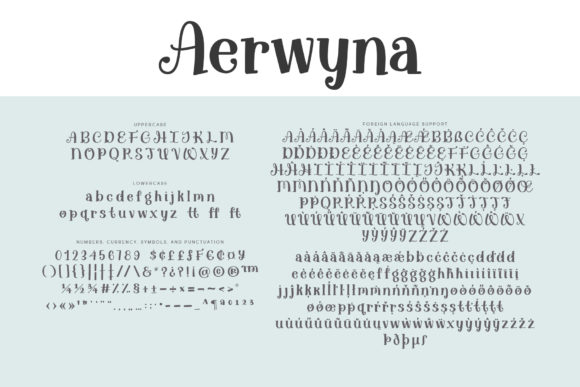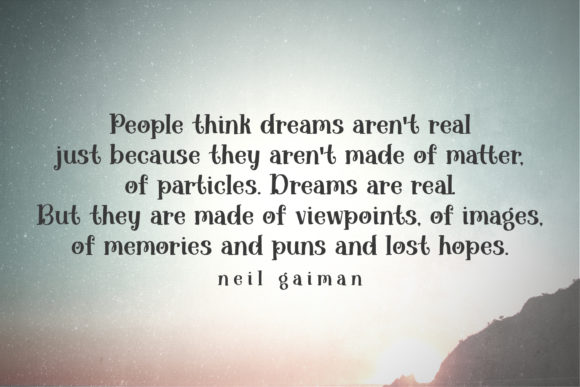
Aerwyna Font: A Whimsical Serif for Your Design Projects
Are you looking for a font that adds a touch of friendliness and whimsy to your design projects? Look no further than Aerwyna, a hand-drawn serif created by Brittney Murphy Design & Misti’s Fonts. This rustic, fairytale-style font is perfect for designers and crafters who want to add a unique and playful touch to their work.
The Story Behind Aerwyna
Aerwyna is a carefully crafted font that is designed to evoke a sense of nostalgia and wonder. With its rustic, hand-drawn aesthetic, this font is perfect for projects that require a touch of whimsy and charm. Whether you’re working on a logo, a website, or a craft project, Aerwyna is sure to add a unique and eye-catching element to your design.
Key Features of Aerwyna
So what sets Aerwyna apart from other fonts? Here are a few key features that make this font truly special:
• Hand-drawn serif: Aerwyna is a hand-drawn serif font, which gives it a unique and personal touch.
• Rustic, fairytale style: This font has a rustic, fairytale-style aesthetic that is perfect for projects that require a touch of whimsy and charm.
• Unique and legible: Aerwyna is a highly legible font that is also unique and eye-catching.
• Versatile: This font can be used for headlines, bylines, or content alike, making it a versatile addition to your design toolkit.
Using Aerwyna in Your Design Projects
So how can you use Aerwyna in your design projects? Here are a few ideas to get you started:
• Logos and branding: Aerwyna is a great font for logos and branding projects that require a touch of whimsy and charm.
• Web design: This font is perfect for websites that need a unique and eye-catching element.
• Crafting and DIY projects: Aerwyna is a great font for crafters and DIY enthusiasts who want to add a personal touch to their projects.
• Social media graphics: This font is perfect for social media graphics that need a touch of personality and whimsy.
Tips for Getting the Most Out of Aerwyna
Here are a few tips for getting the most out of Aerwyna:
• Experiment with different sizes: Aerwyna is a versatile font that can be used at a variety of sizes. Experiment with different sizes to find the one that works best for your project.
• Pair with other fonts: Aerwyna can be paired with other fonts to create a unique and eye-catching combination.
• Use for headlines and body copy: This font is highly legible, making it perfect for both headlines and body copy.
Aerwyna is a unique and versatile font that is perfect for designers and crafters who want to add a touch of friendliness and whimsy to their design projects. With its rustic, fairytale-style aesthetic and highly legible design, Aerwyna is sure to become a favorite in your design toolkit. So why not give it a try and see how it can add a touch of magic to your next project?
• Font type: Hand-drawn serif
• Font style: Rustic, fairytale style